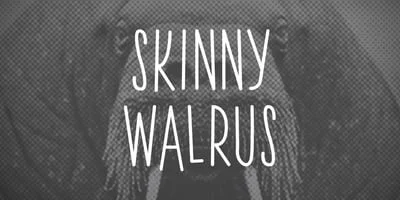
Skinny Walrus Font
Skinny Walrus Font is perfect for quirky children's book publishing, playful marine animal education materials, whimsical arctic-themed campaigns, funny animal toy packaging, comedic wildlife documentaries, and lighthearted zoo marketing promotions. Its amusing character makes it ideal for children's entertainment venues, marine biology educators, arctic wildlife organizations, comedy content creators, and any application requiring humorous typography that conveys playful absurdity, marine animal charm, and the delightful contradiction of unexpected animal characteristics.
Skinny Walrus Font is exciting because it celebrates the delightful absurdity and unexpected humor found in nature through playfully contradictory letterforms that capture the whimsical impossibility of a skinny walrus while maintaining the loveable charm of marine wildlife. Its slender proportions and marine-inspired details create an endearing contradiction that brings smiles and laughter, making it perfect for brands seeking to inject humor and playfulness into their communications. The font's amusing character transforms ordinary text into sources of gentle comedy and marine delight.
Skinny Walrus Font family includes humorously-designed weight variations typically featuring Light, Regular, and Medium options with playful styling that maintains marine authenticity. The family often incorporates marine symbols, arctic elements, and whimsical characters designed for children's and comedy applications, providing designers with comprehensive tools for creating authentic, humor-focused typographic compositions.
When selecting humorous marine typography solutions, Skinny Walrus Font represents an exceptional choice for children's and comedy-focused projects. This amusing typeface brings instant marine humor to any design, making it invaluable for children's book publishers, marine educators, and entertainment companies celebrating wildlife comedy. Whether you're developing children's marine education materials, creating funny animal-themed campaigns, or designing whimsical zoo promotional content, Skinny Walrus Font provides the playful humor and marine charm essential for creating smiles in today's family-friendly entertainment marketplace.